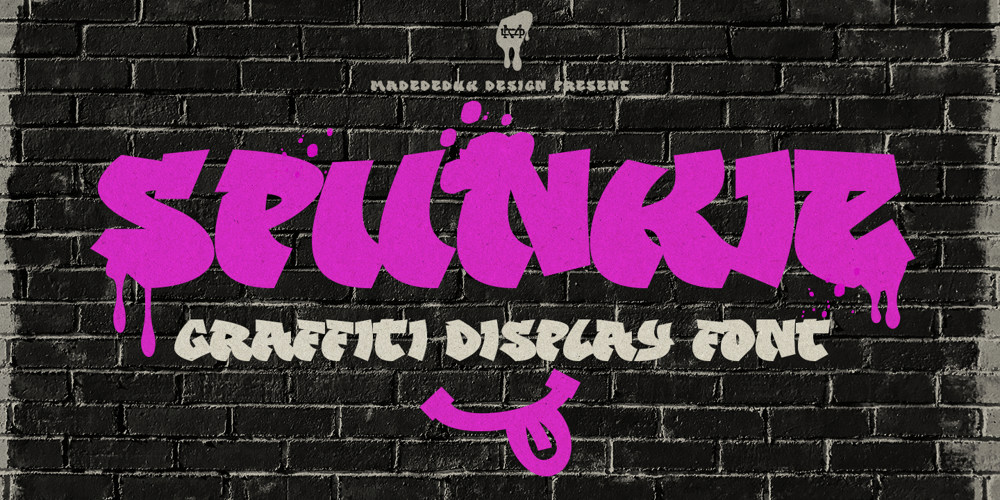
Spunkie
Spunkie font
Spunkie Font Family was designed by madededuk and published by madeDeduk. Spunkie contains 1 styles and family package options. Spunkie is a graffiti font inspired from 90s street hip hop style. Clear and unique you can explore and combine creating rhythm for comfortable reading. This font perfect for any projects, such logotype, stickers, packaging design, headlines, brand identity, t-shirt, posters, magazines, books, Instagram, websites, and many more.Feature Uppercase & Lowercase Number & Symbol International Glyphs Multilingual support Alternative Feel free to drop us a message any time and follow my shop for upcoming updatesHope you enjoy it.